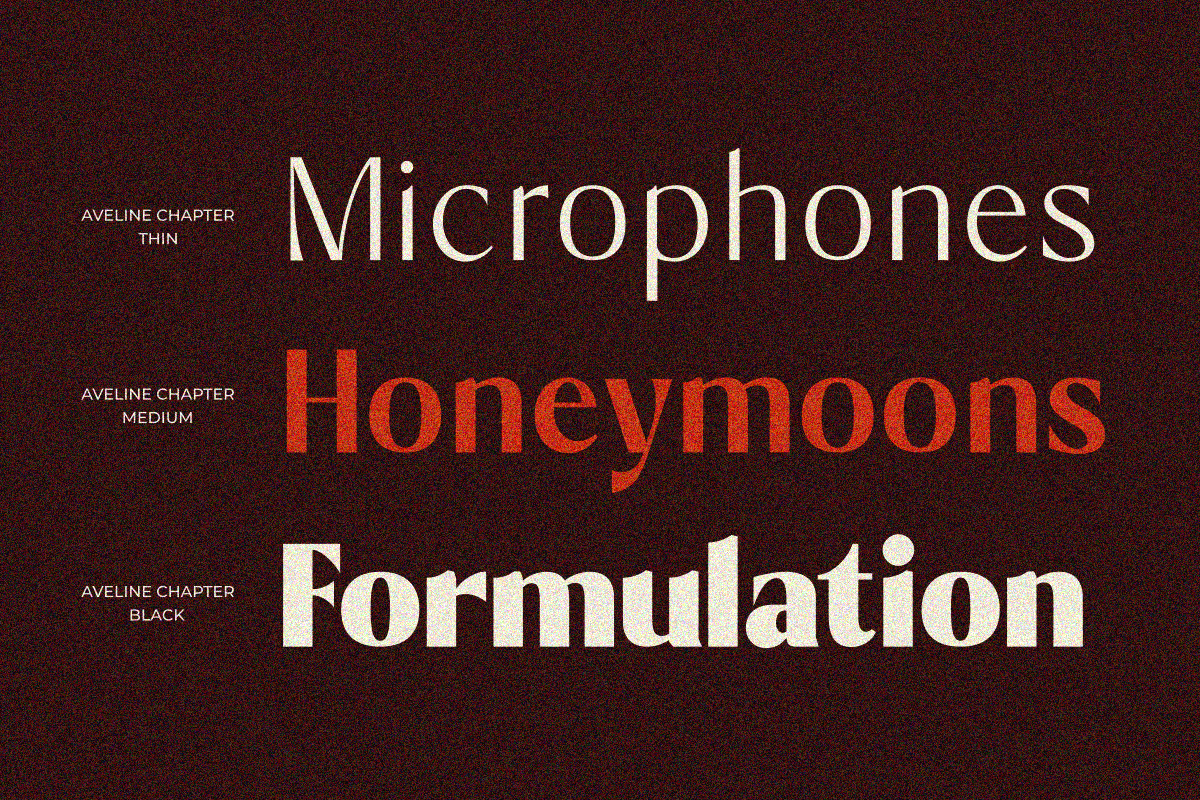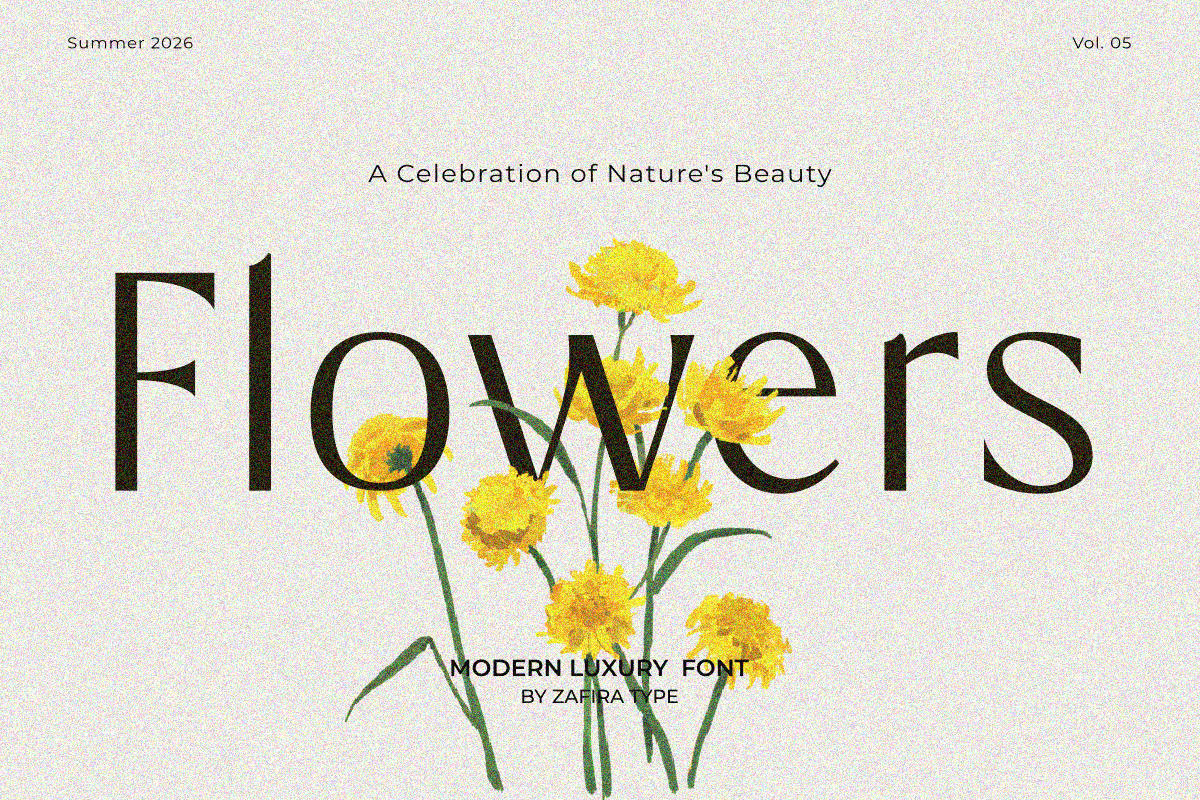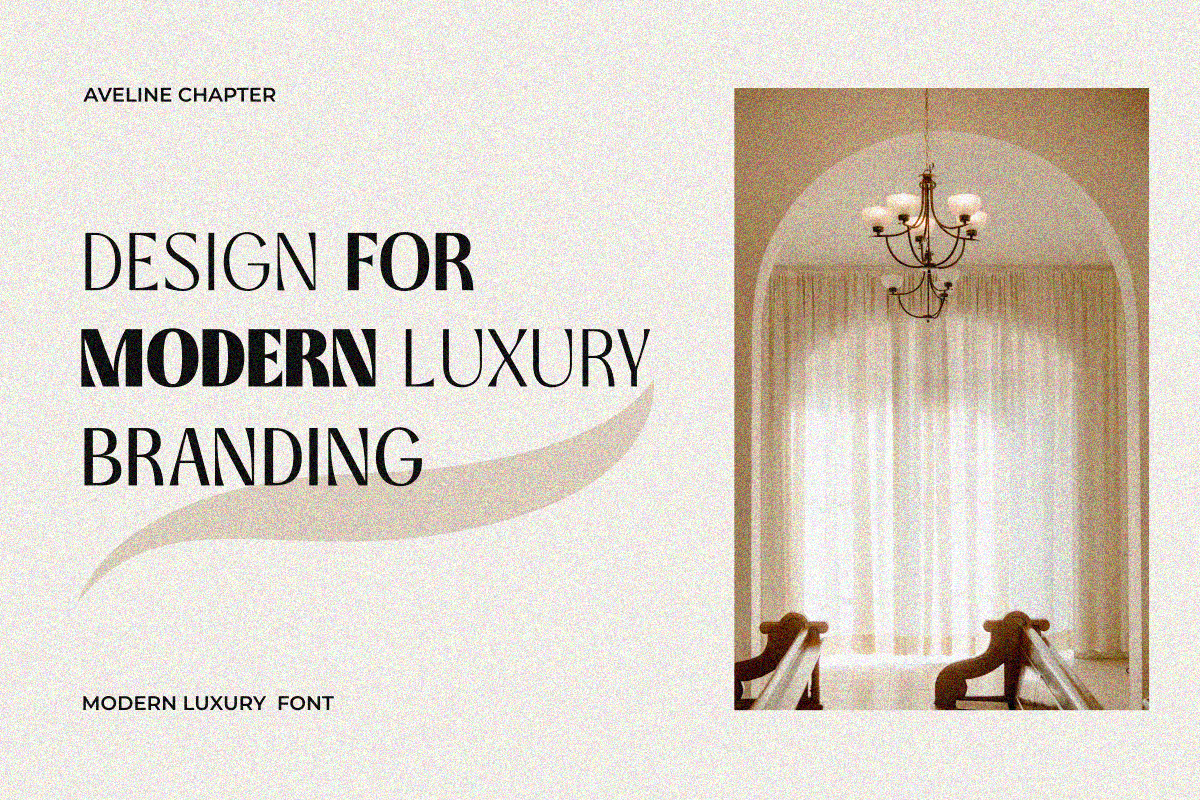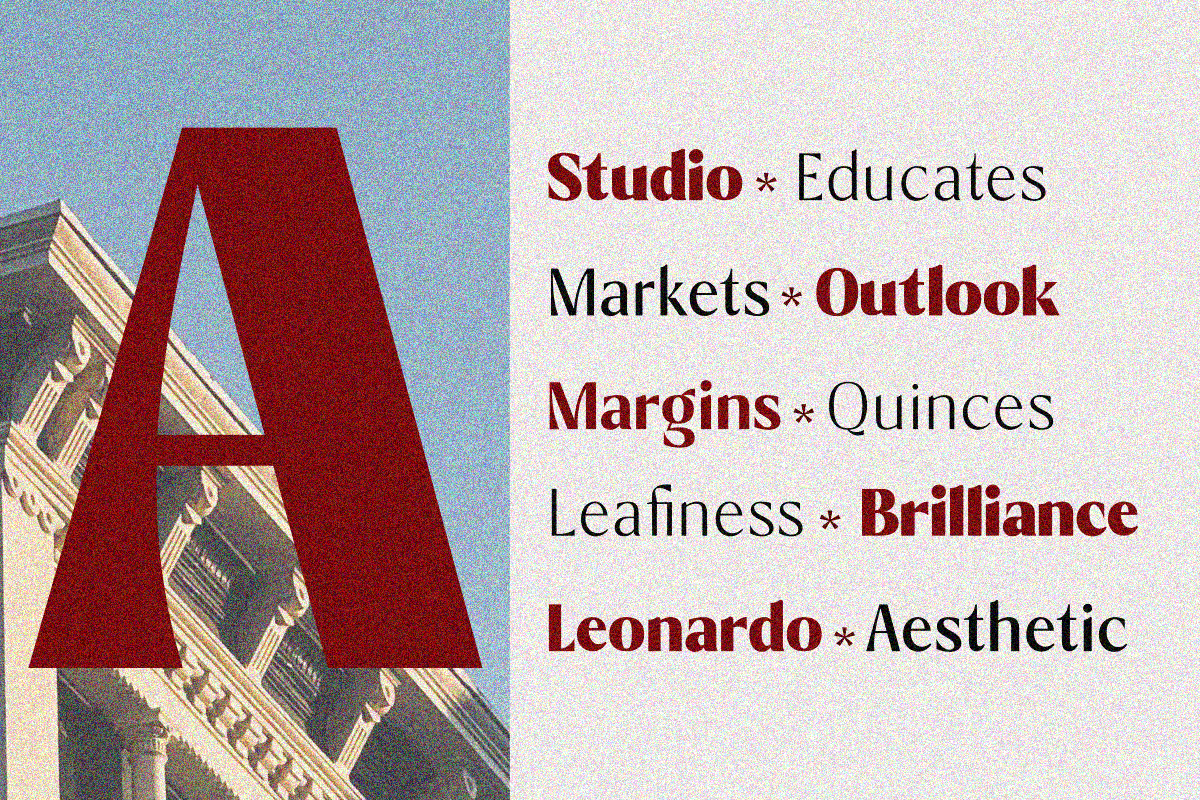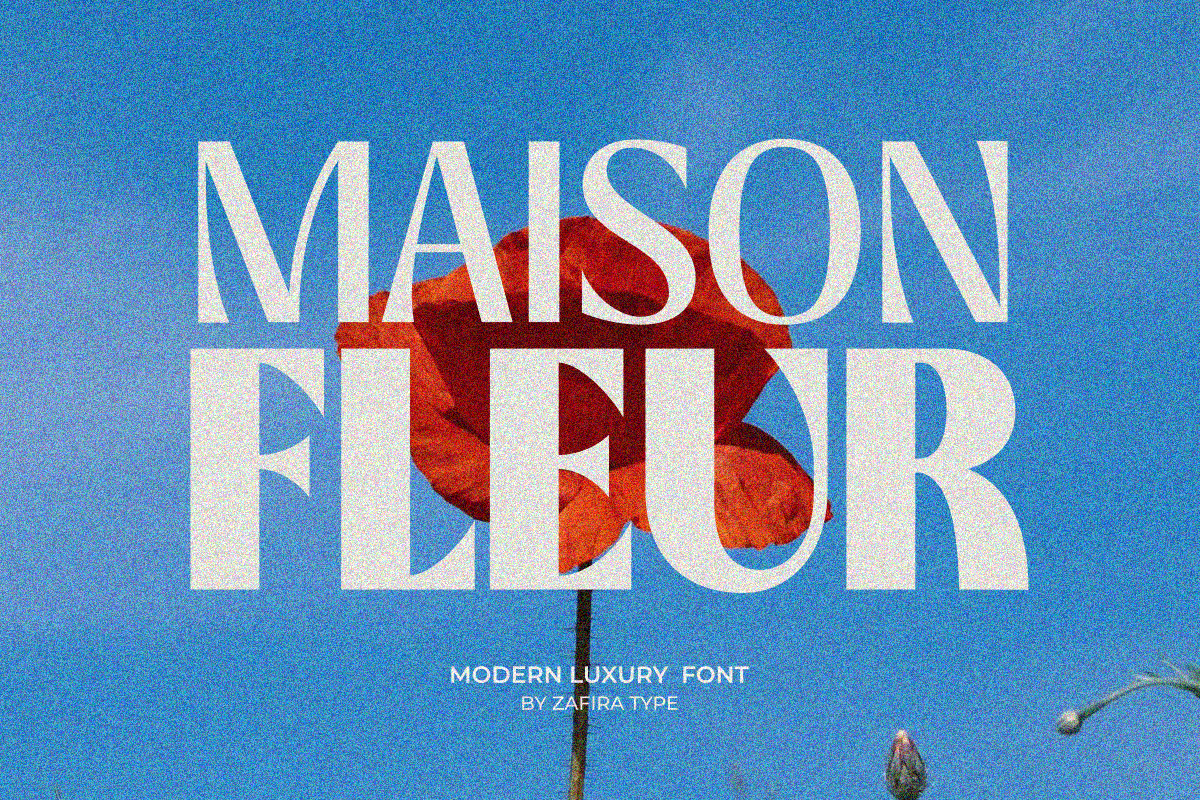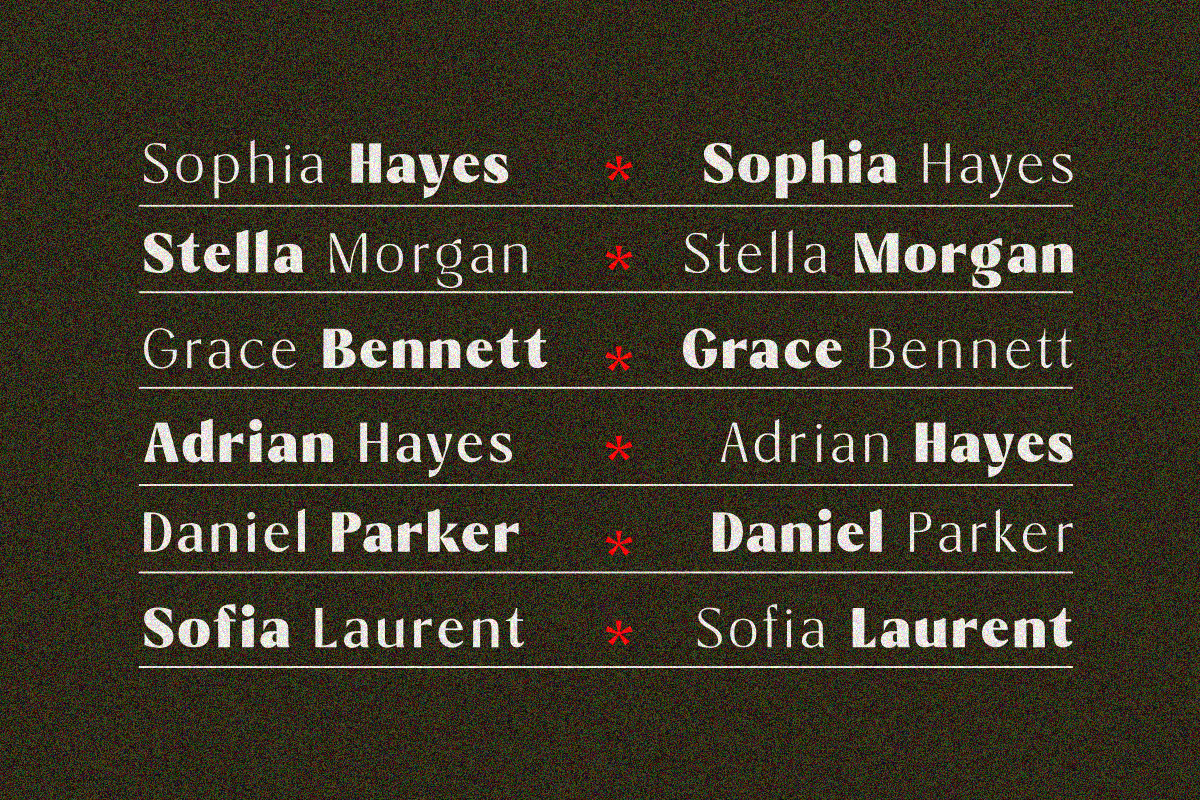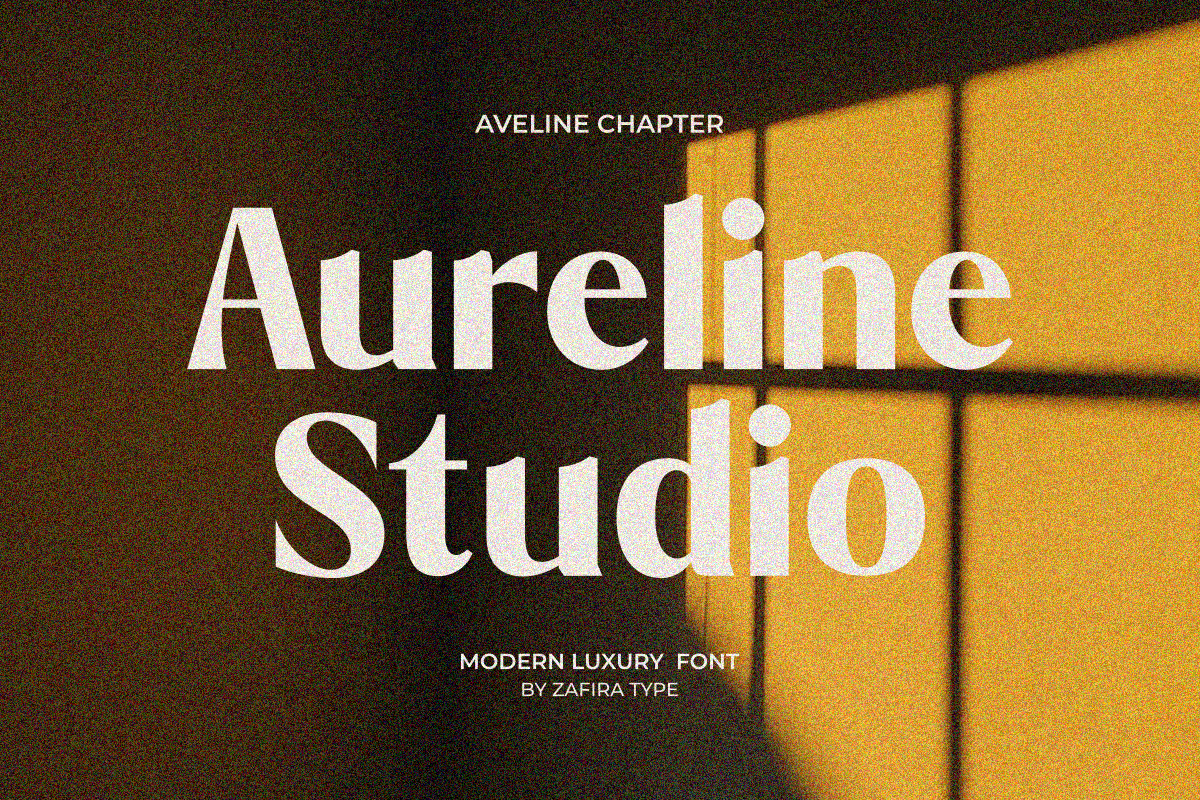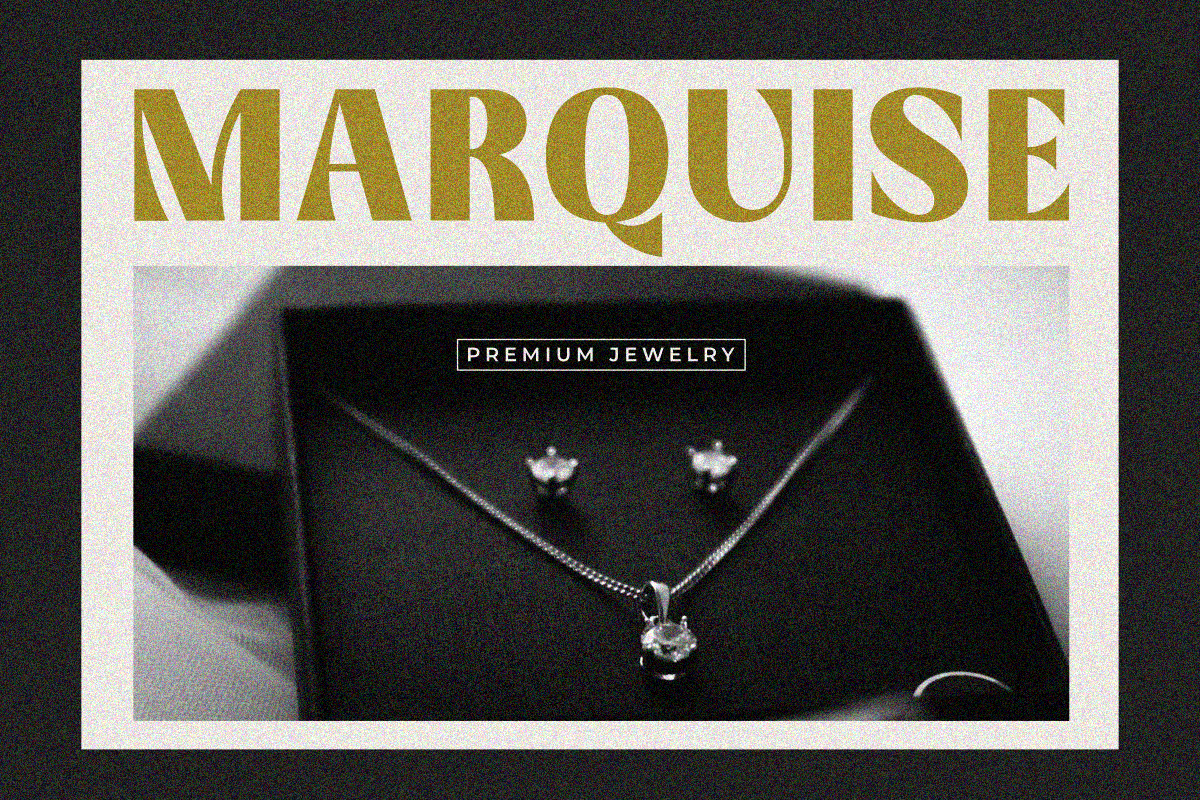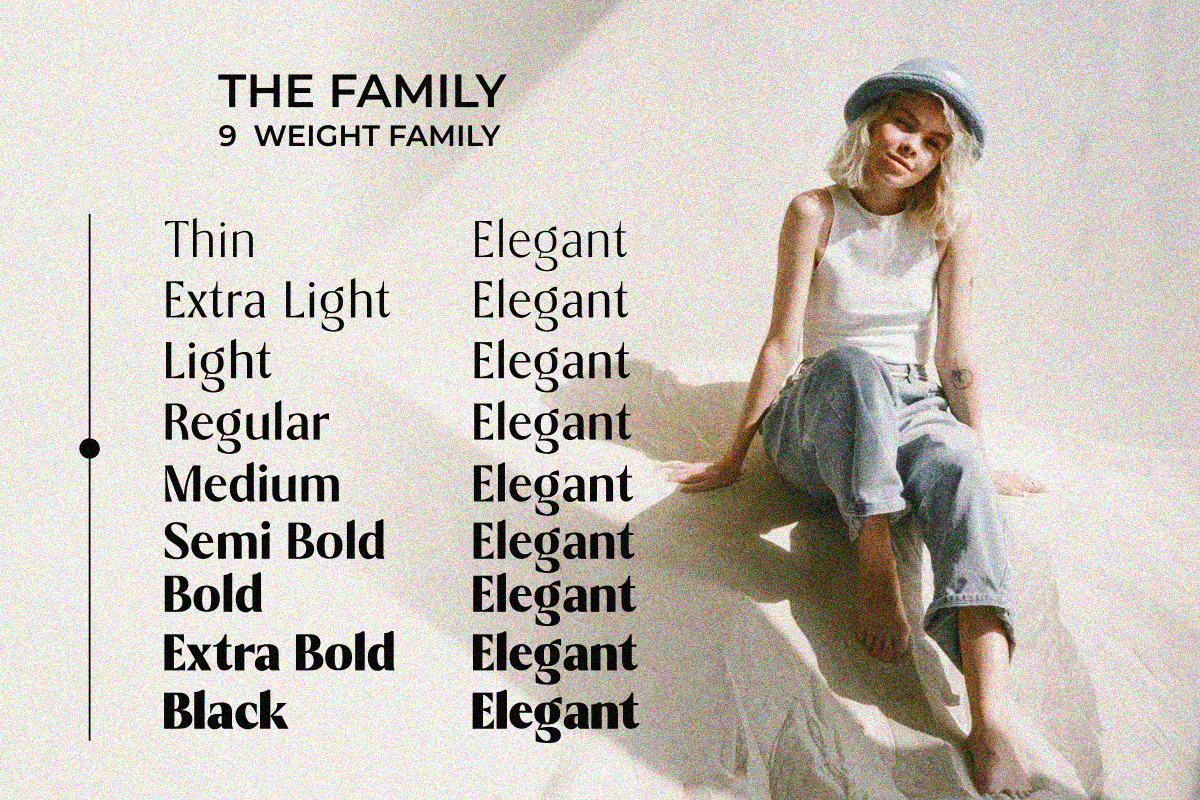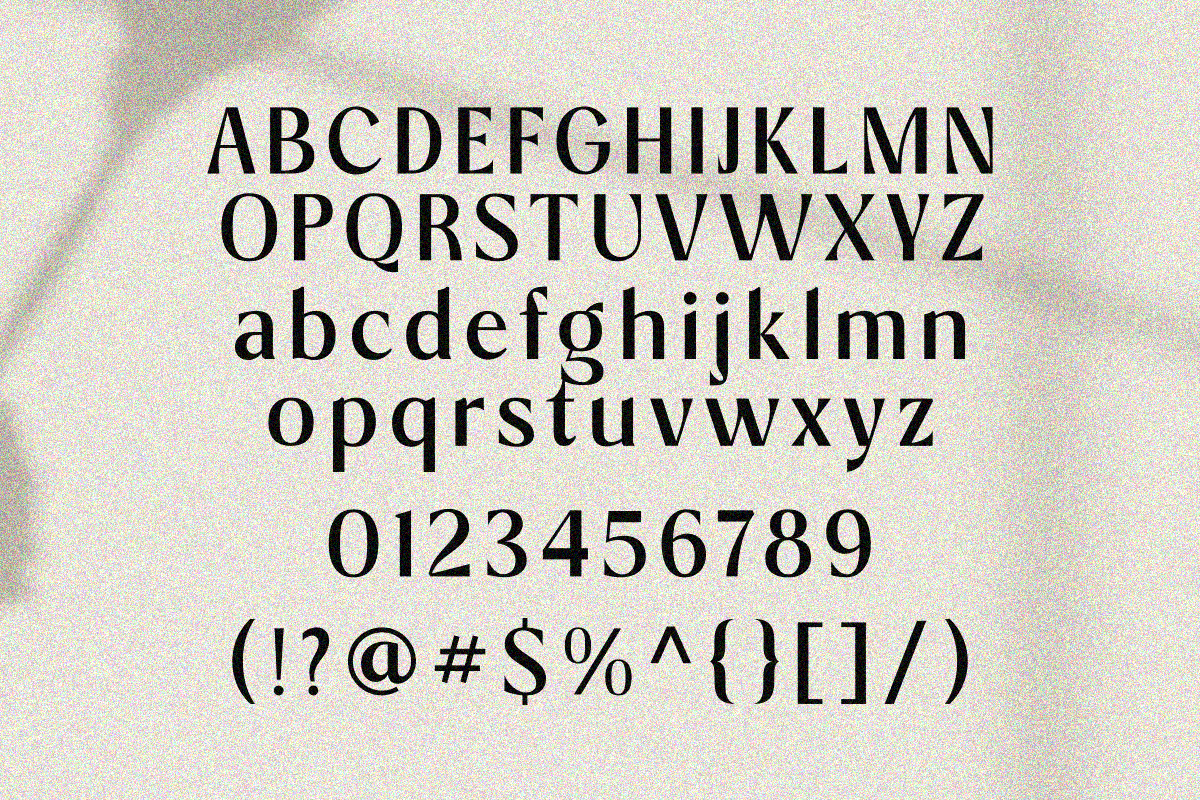
Aveline Chapter
Aveline Chapter is a modern display sans serif font family designed with clean lines, balanced proportions, and a refined contemporary style. Featuring 9 carefully crafted weights, from Thin to Black, it offers the flexibility to create strong visual hierarchy across a wide range of design projects.
Perfect for branding, logos, packaging, editorials, posters, websites, and social media, Aveline Chapter delivers a clean, professional, and distinctive look that enhances any modern visual identity.